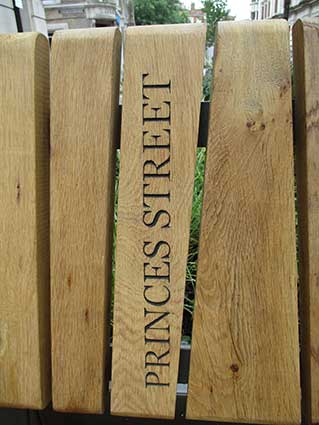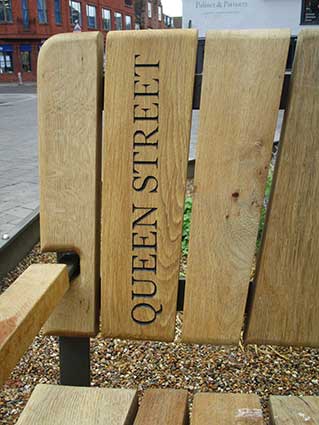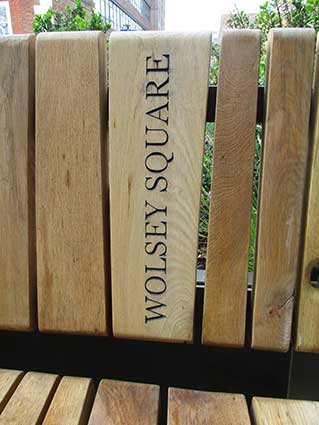
Greening
the streets (Cornhill to the Wet Dock)
August 2026: the completion of Ipswich Borough
Council's four-phase greening project, which began in February 2026 and
covers key locations including Princes Street, Queen Street, St.
Nicholas Street, and Wolsey Square. The project, by Brooks and Wood
Ltd., aims to enhance the route between the town centre and waterfront,
while supporting biodiversity and improving the public realm.
Irregularly-shaped flower beds are self-watering and have feature trees
to give the project height. The benches are the work of designer and
furniture maker Tim Germain. Quite a few feature incised vertical
lettering in the back-boards: capitals resembling Times New
Roman in a smart serif face.
Princes Street
2026 images
Above: the view from
Cornill with the Town Hall on the right.
Note the Ipswich Society's Blue Plaque on
its corner celebrating Mary Whitmore MBE, Ipswich's first woman Mayor
in 1946.
Queen Street
Queen Street has a
couple of bedding and seating schemes with the above attractive
circular seat around a beautiful tree. Repaving in dark and light
colours throughout is an integral part of the project. The named bench
(above) is further south.
St Peters Street
Above left: the view
from the end of Silent Street shows the replica Victorian pillar box in
the foreground. Here the incorporation of existing trees and the Wolsey statue is creative and successful.
The named bench (above right) is somewhat controversial. This area at
the confluence of Silent Street, Cutler Street, St Nicholas Street and
St Peters Street has become known over recent years as Curson Plain. It
is named after Lord Curson whose mansion stood a little further down on
the left, Curson Lodge (behind the
photographer) was the lodging used for servants of visitors to Curson's
House (see our page on Wolsey's College
for more information). The Sailors Rest
is in the background. 'Wolsey Square' seems to have come out of nowhere
with no consultation, particularly of local residents. It's hardly a
'square' and one feels that the Wolsey name has been crow-barred in.
Admittedly, the uncertain birth-place of our town's most famous son
could have been in the long-disappeared St Nicholas Lane nearby, but
Curson Plain is a better historical fit.
The greening of the route from
Cornhill to the Wet Dock was intended to involve the narrowing of St
Peters Street and making it one-way (south to north) with a vehicle
access from the Cromwell Square car park allowing traffic an exit into
Franciscan Way, However, it doesn't look as if it will be carried out.
More flower beds and seating (with lettering) could heve been
introduced down St Peters Street. Overall, this biodiversity project is
an excellent addition to Ipswich in 2026, providing places for people
to sit and chat, perhaps enjoy a drink or an ice-cream, and look at the
well cared-for flowering plants and trees.